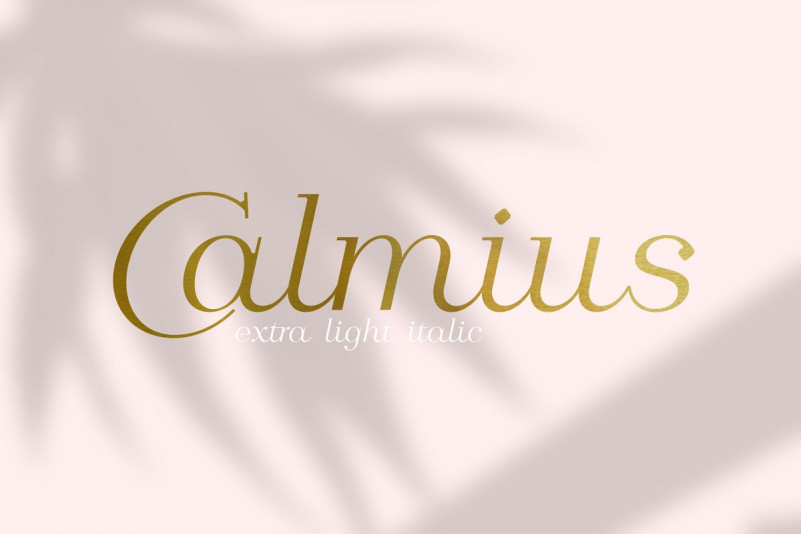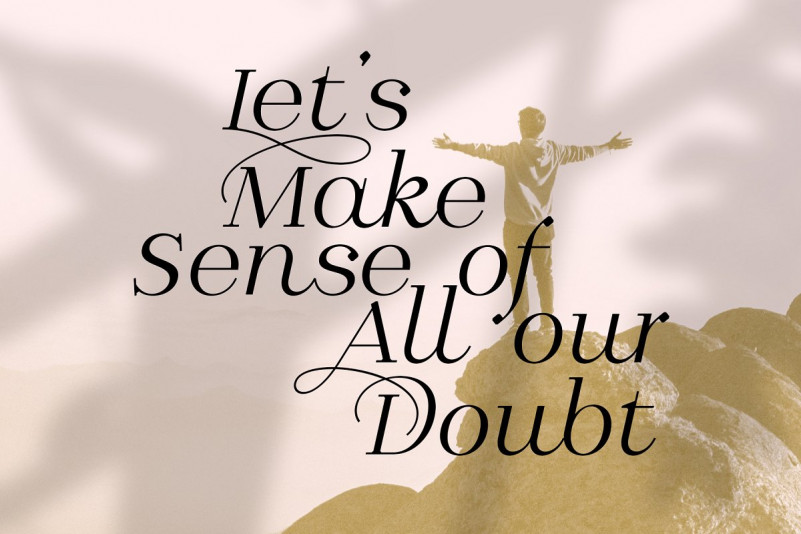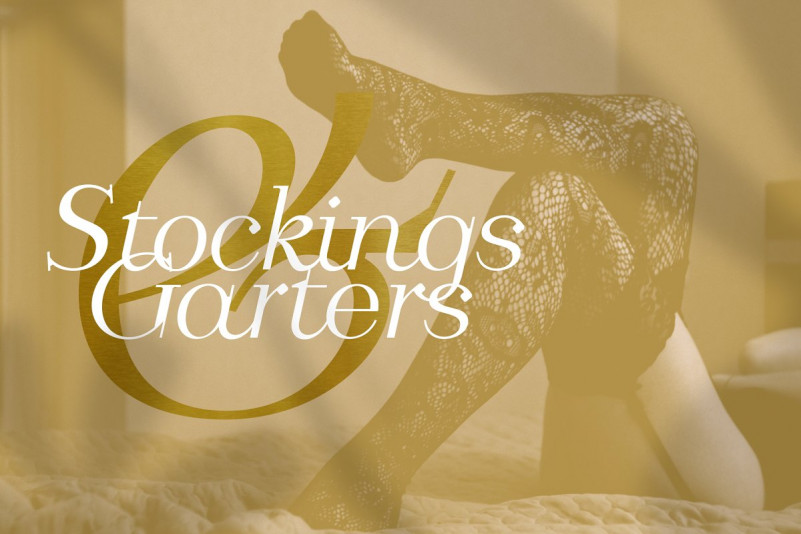
Calmius Font
Calmius is an elegant modern serif font family inspired by fashion typography. It perfectly represents modern and vintage esthetics. The font includes small caps letters, stylistic alternates, oldstyle figures and beautiful ligatures.